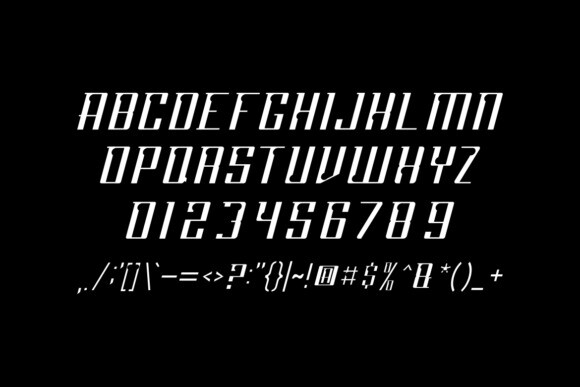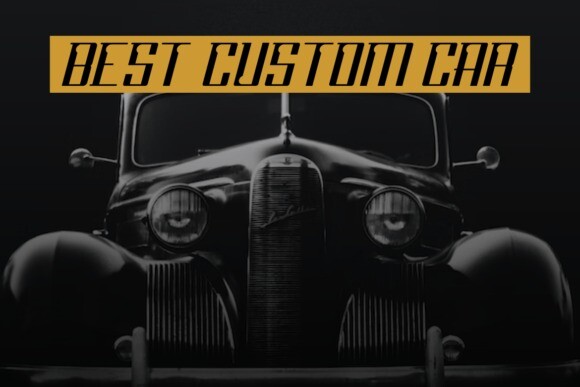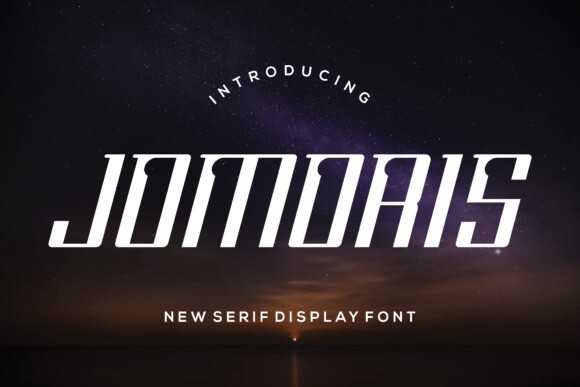
Jomoris Font
Jomoris Font, It will look stunning on any food menu, poster, flyer or print. Use this font for your designs and explore its endless possibilities